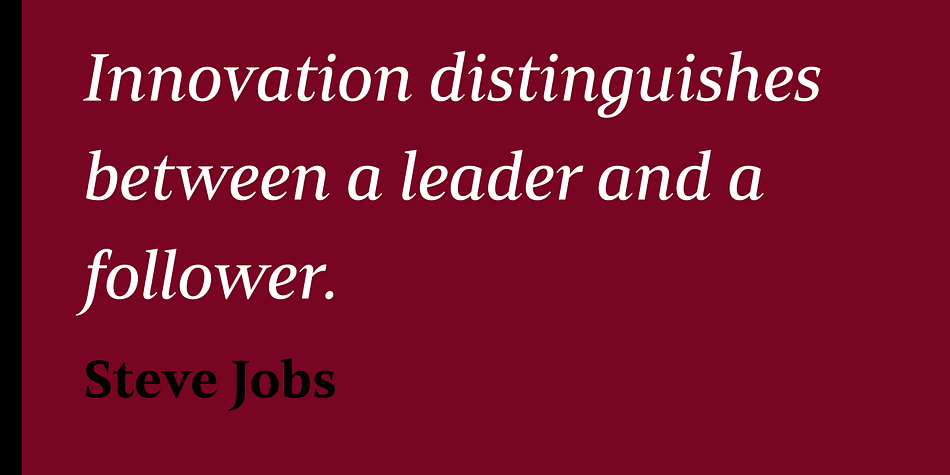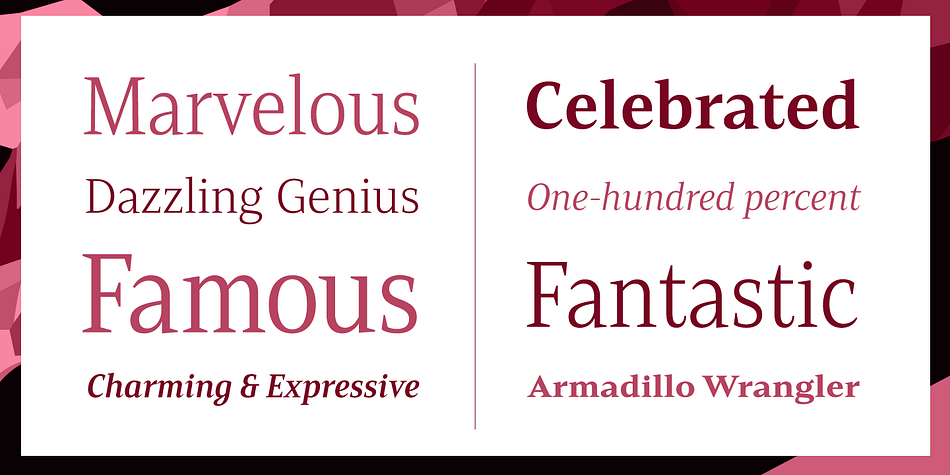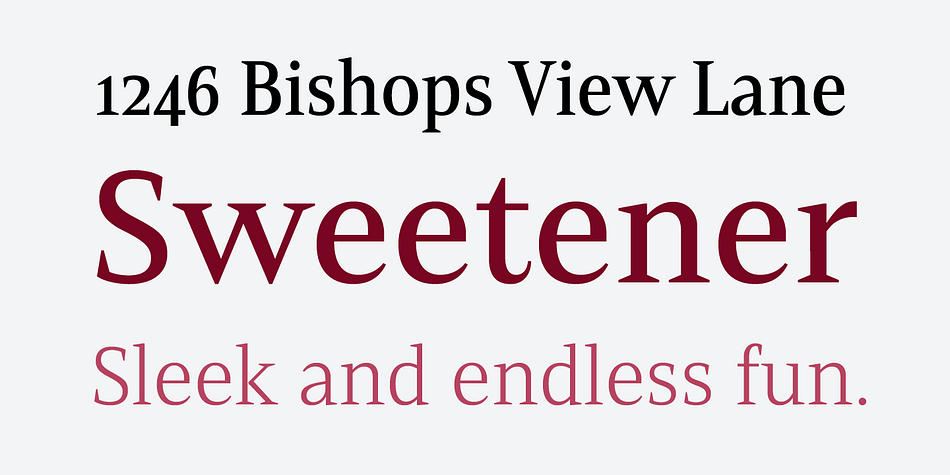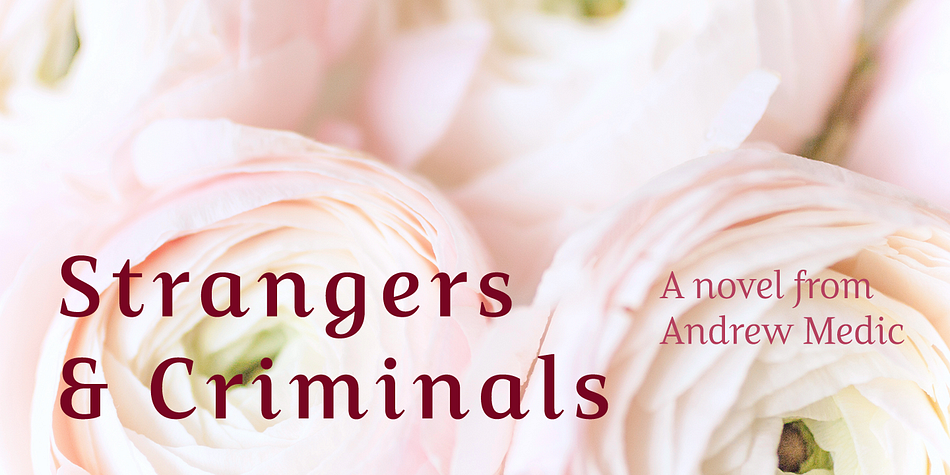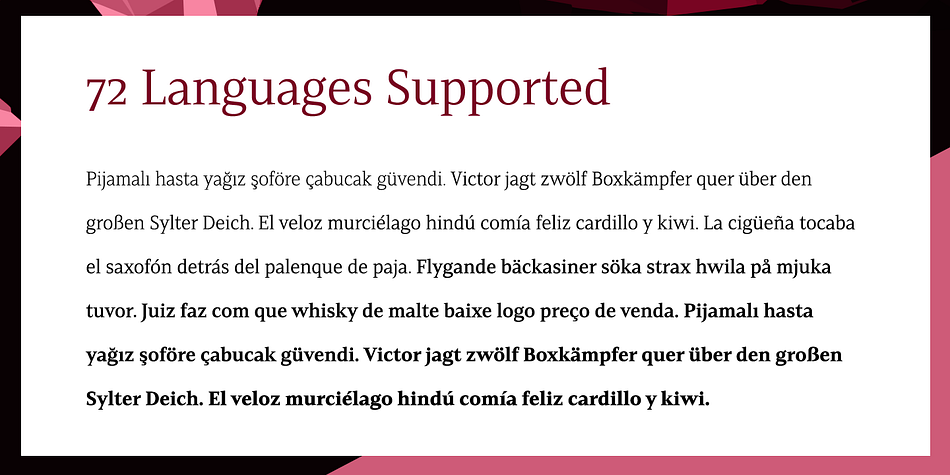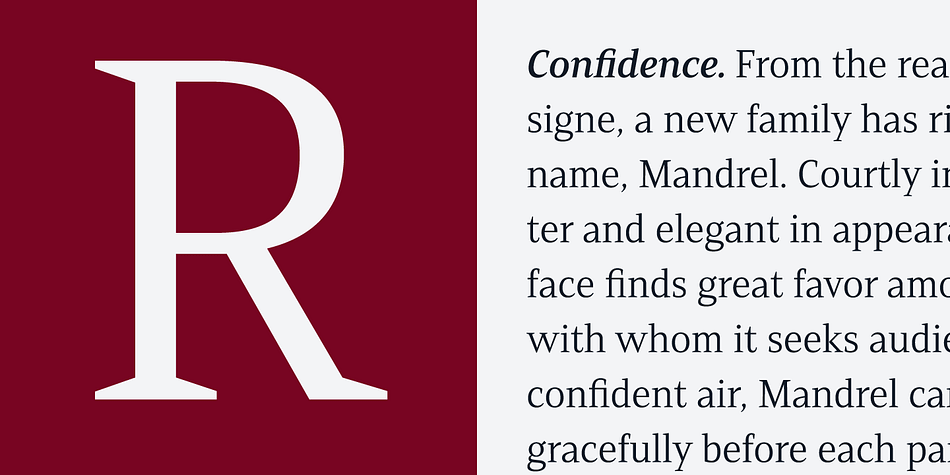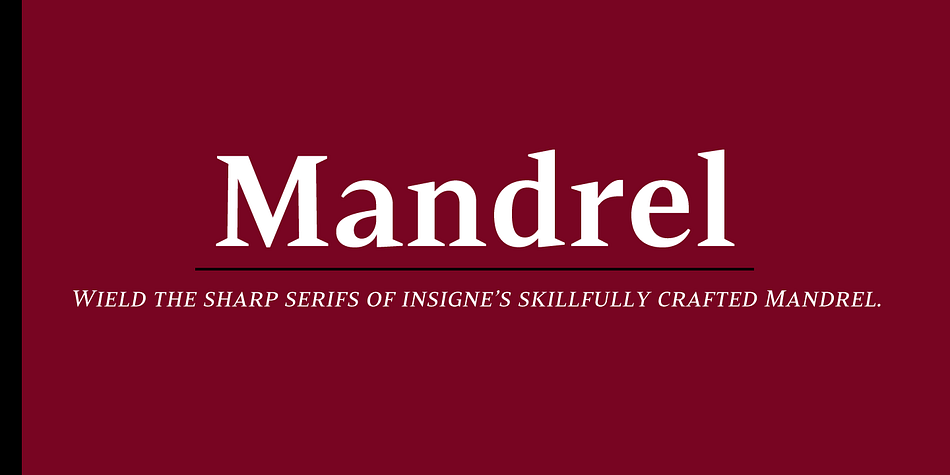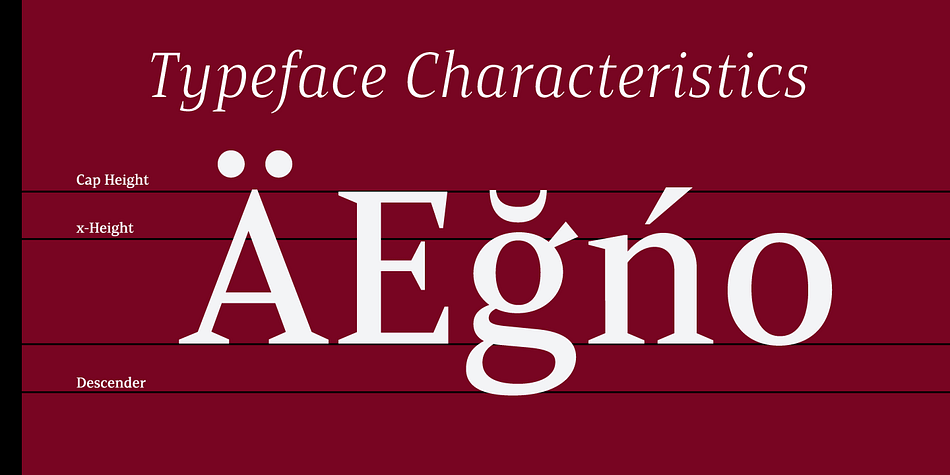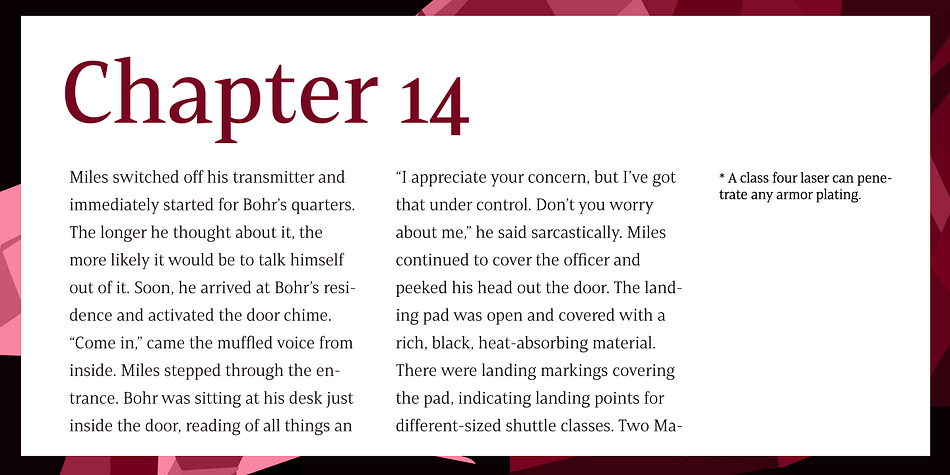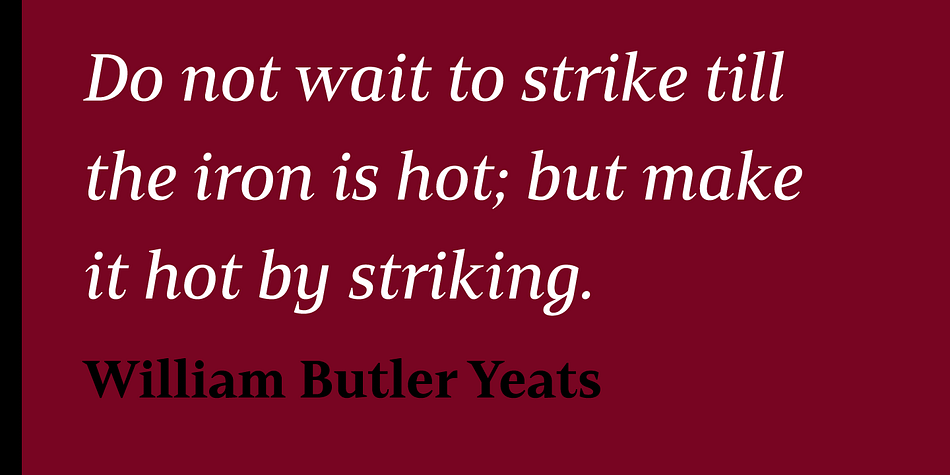
Mandrel is a serif font family. This typeface has fifty-four styles and was published by Insigne Design.
From the realm of insigne, a new family has risen. By name, Mandrel. Courtly in character and elegant in appearance, the face finds great favor among those with whom it seeks audience. With confident air, Mandrel carries itself gracefully before each pair of eyes, never faltering or stumbling in its refined step.
But while dressed with gentility, this elegant family is not faint of heart when challenged. Crafted well for high-impact resistance, Mandrel steps boldly and prominently into the arena of the reader’s eye, boasting its tall x-heights, high contrast, confident bends, and sharp serifs. Skillfully, it wields its sharp serif endings, cutting swiftly through opponents’ crude clutter, which fights for the reader’s attention.
From Thin to Black, nine weights and their matching italics make up this noble family. Mandrel furthermore includes an abundant treasury of OpenType variables to adorn your text. Ligatures, old-style figures, and stylistic sets are available to accompany the family’s 500 glyphs and its support for more than 70 languages.
Raise your cup to this new Mandrel! With strong serifs and high contrast, you’ll find this champion ready to take up your challenge in many a test ahead.